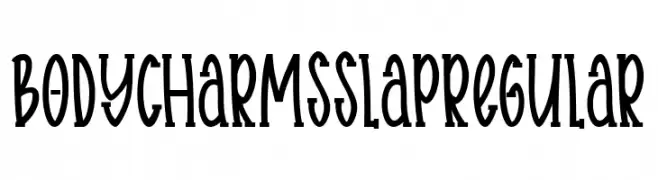
( Fonts by Ahmad Zulfikar Ali )
An ornate, decorative font with intricate flourishes and a modern script style.
( Fonts by Indra Gunawan )
A bold, decorative font with a unique patterned texture.
( Fonts by Jetsmax Studio )
A whimsical, leaf-inspired font with elegant curves and natural motifs.
( Fonts by Kong Font )
A playful, italicized font with a unique dot pattern and high contrast strokes.
( Fonts by imagex )
A bold, decorative font with a dotted marquee style, perfect for festive designs.
( Fonts by Jetsmax Studio )
An elegant, whimsical font with flowing, cursive-like strokes and intricate swirls.
( Fonts by Brithos Type )
A playful, handwritten font with bold, irregular strokes.
( Fonts by Bangkit Tri Setiadi )
A playful, bold font with thick, rounded strokes and a whimsical style.
( Fonts by Stefani Letter )
A playful, bold, and rounded hand-drawn font with a whimsical style.
A bold, decorative font with a mechanical and futuristic style.
( Fonts by Emanes Dsign )
An artistic, narrow font with elongated characters and a playful yet sophisticated style.
( Fonts by Emanes Dsign )
A decorative font with intricate geometric and abstract patterns.
( Fonts by Aliff Roslan )
A playful, block-inspired font with mechanical bolt details.
A bold, decorative font with star patterns and a vintage marquee style.
A bold, decorative font with geometric shapes and intricate patterns.
( Fonts by sronstudio )
A playful, bold, and rounded font with a hand-drawn feel.
A bold, 3D font with a striped pattern and italicized style.
( Fonts by Ditya Ananto )
A thorn-adorned decorative font with a rugged and edgy style.
( Fonts by Din Studio )
A bold, decorative font with a distressed, vintage texture.
( Fonts by Reffan Suseno )
A geometric and intricate font with maze-like patterns and bold lines.
A bold, decorative font with playful circular cutouts and thick outlines.
A bold, decorative font with playful circular cutouts and a strong visual impact.
A bold, decorative font with a unique drilled pattern and thick outlines.
( Fonts by Wilda Khairunnisa )
A decorative font with floral embellishments and a whimsical style.
( Fonts by Rangkai Aksara )